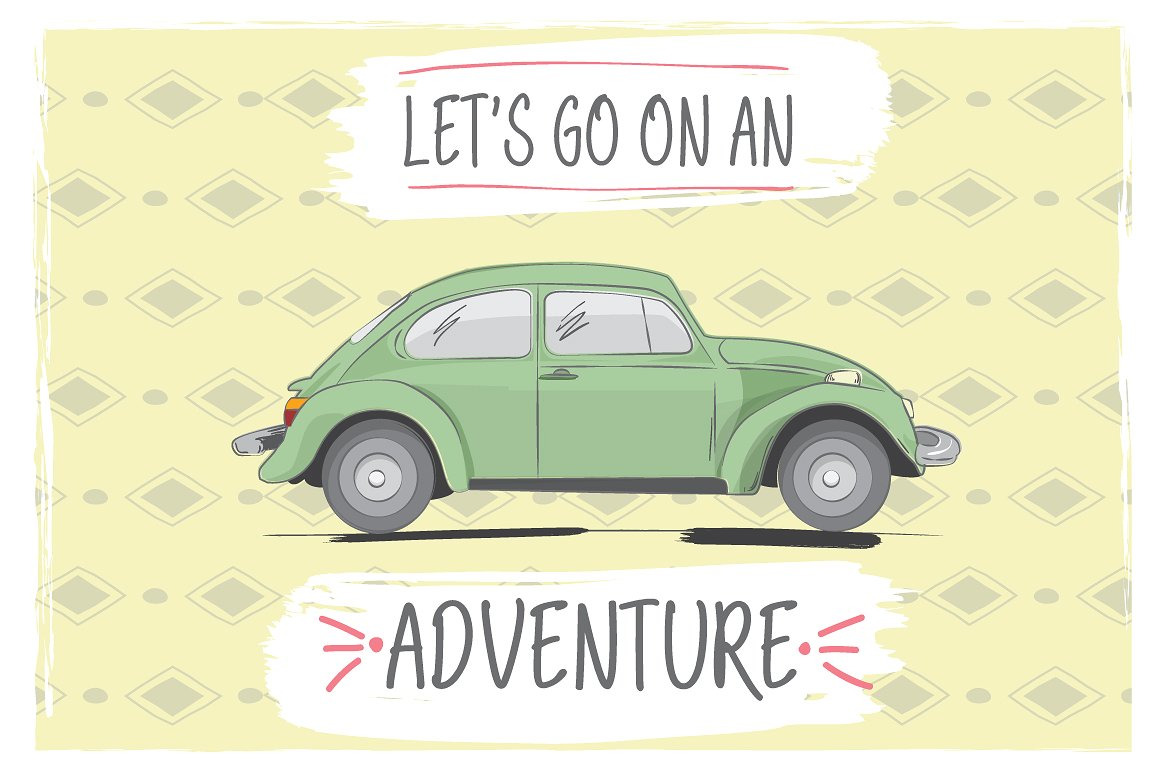
Aberdeen Font Family
Aberdeen Font Family - 11 Fonts
Aberdeen is a very legible hand made font. Nice and loose, not too messy and with just a hint of childishness!!!
It was first designed for display, headline, logotype, branding, and similar applications but thanks to the bolder weights, it can also be used in smaller sizes, you can combine different weights for different sizes to obtain a more balanced look, or you can just give emphasis using different weights.
Numbers & Simbols
Aberden Font Family:
- Aberdeen Regular
- Aberdeen Italic
- Aberdeen Bold
- Aberdeen Condensed
- Aberdeen Expanded
- Aberdeen Wide
- Aberdeen Wide Bold
- Aberdeen Bold Italic
- Aberdeen Wide Italic
- Aberdeen Condensed Bold
- Aberdeen Condensed Italic